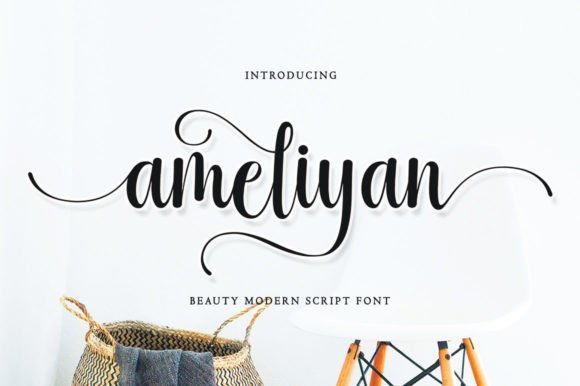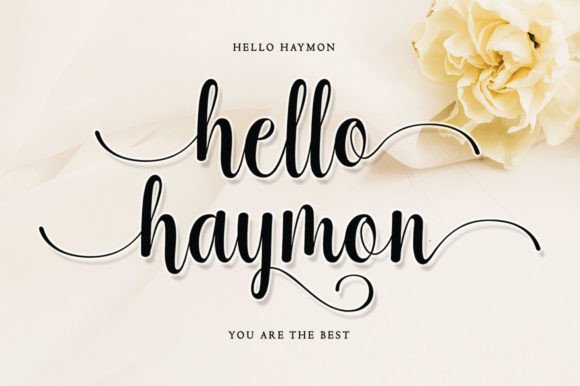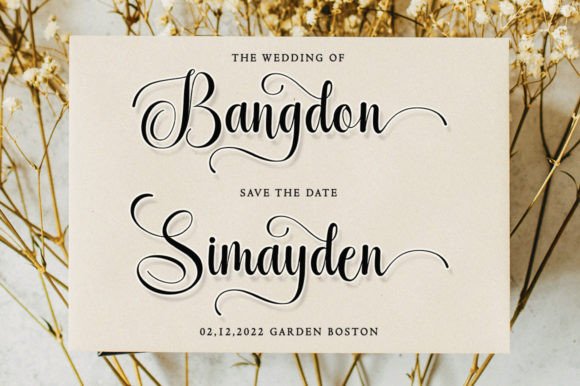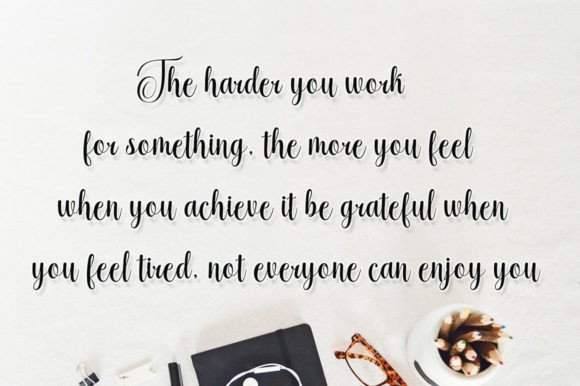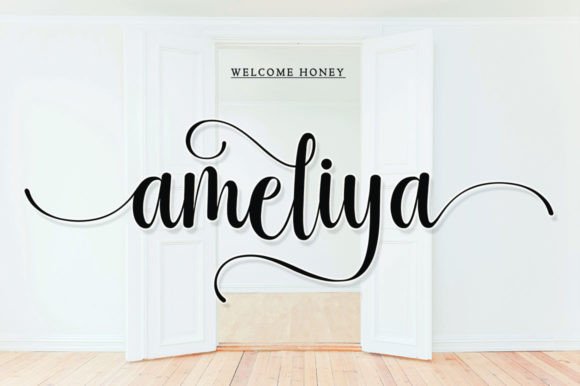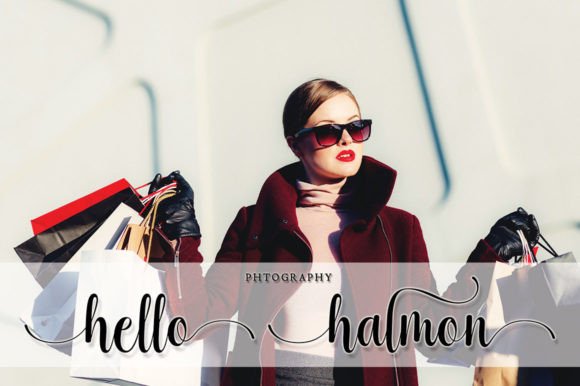
Ameliyan Font
About Ameliyan Font
Ameliyan is a sweet and romantic handwritten script font. Its style is perfect to use in all your design projects be it logos, labels, packaging designs, blog titles, posters, wedding designs, social media posts, Instagram designs, etc.